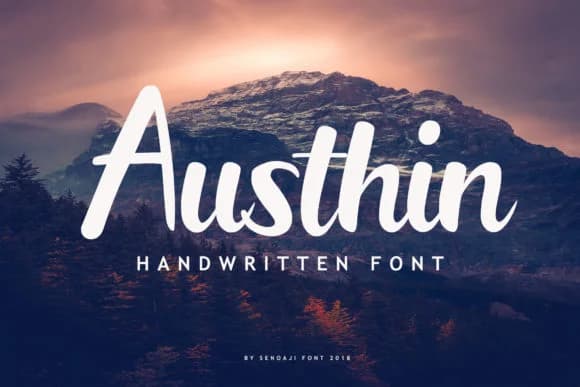
Austhin by senoajifont is a modern handwritten script distinguished by its bold, expressive letterforms and dynamic visual presence. The font brings authentic personality to contemporary design work while maintaining excellent legibility across different applications. Its confident strokes and generous proportions create immediate visual impact, making it an excellent choice for designers seeking handmade warmth without sacrificing professional polish.
The versatility of Austhin shines across multiple applications: wedding invitation suites benefit from its personal yet sophisticated aesthetic, while modern brand identities and logos gain distinctive character in competitive markets. Greeting card designs, congratulations messaging, and personalized note layouts leverage the font's handmade warmth effectively. For small business owners, craft labels, Etsy shop branding, and artisanal product packaging all benefit from Austhin's authentic handwritten aesthetic that communicates care and individuality.
Whether you're designing social media graphics, custom stationery, event announcements, or brand headers, Austhin delivers consistent visual impact while remaining readable across sizes and mediums. The robust character set and thoughtful spacing ensure legibility whether displayed on digital screens or printed materials, from large headlines to smaller label text. This makes it a genuinely versatile asset for designers who value both aesthetic appeal and functional performance. Discover Austhin on Creative Fabrica and bring handwritten sophistication to your next project.
Austhin Font is a script font that shines as a display or heading face. Pair it with a clean sans-serif or serif font for body text β the contrast creates a clear hierarchy while the two styles stay balanced and easy to read.